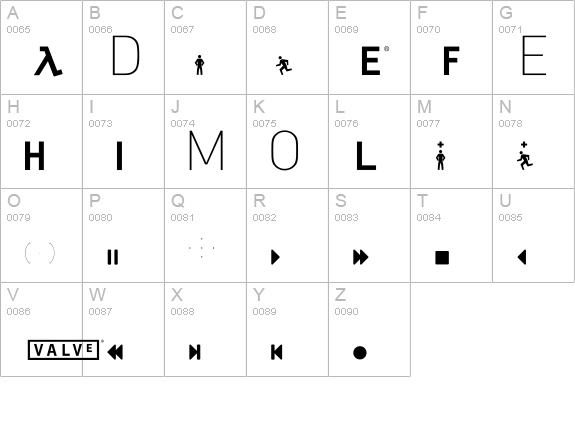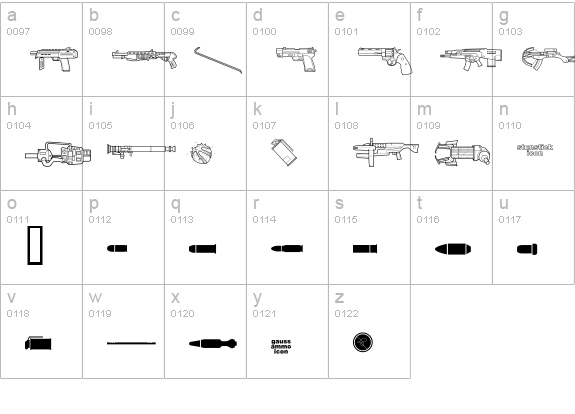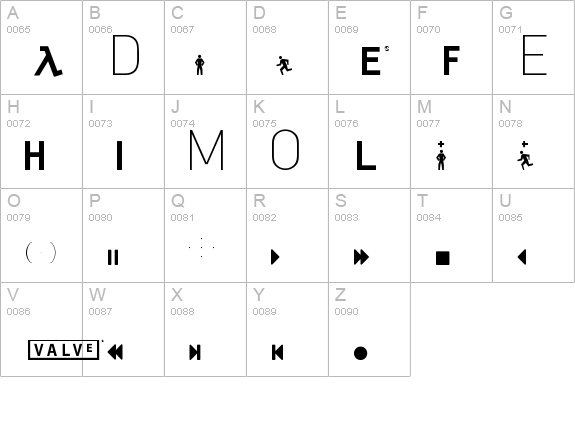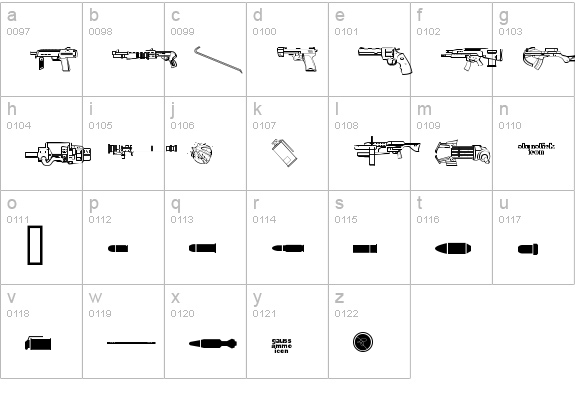
HalfLife2 Font Details
The HalfLife2 font is a stunning display typeface that effortlessly captures the essence of the iconic video game series. Its bold and futuristic design pays homage to the thrilling world of Half-Life 2, immersing users in a captivating typographic experience. This font exudes a sense of energy and excitement, reflecting the fast-paced nature of the game. With its sleek lines and sharp edges, the HalfLife2 font adds a touch of modernity to any design project. Its versatility allows it to be used in a variety of contexts, from gaming websites and posters to logos and branding materials. Whether you're a fan of the game or simply looking to inject a dose of edginess into your designs, this font is the perfect choice. What sets the HalfLife2 font apart is that it is freely available to download at FontsMarket.com. This means that designers and enthusiasts alike can access this extraordinary typeface without any restrictions or costs. Now, you can harness the power of this font to elevate your creative projects and captivate your audience, all without breaking the bank. So, if you're ready to unleash the essence of Half-Life 2 into your designs, look no further than the HalfLife2 font. Download it for free today at FontsMarket.com and embark on a typographic journey that will leave a lasting impression.